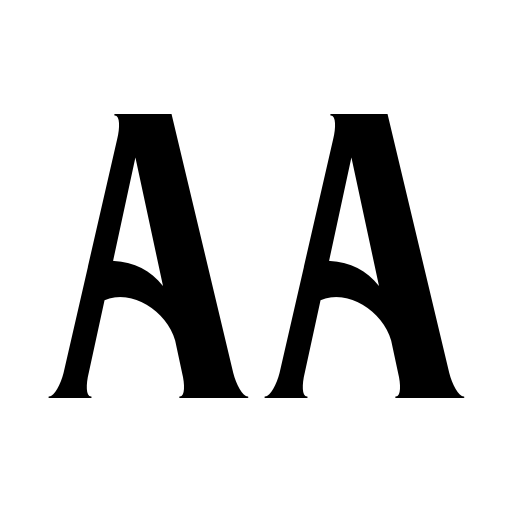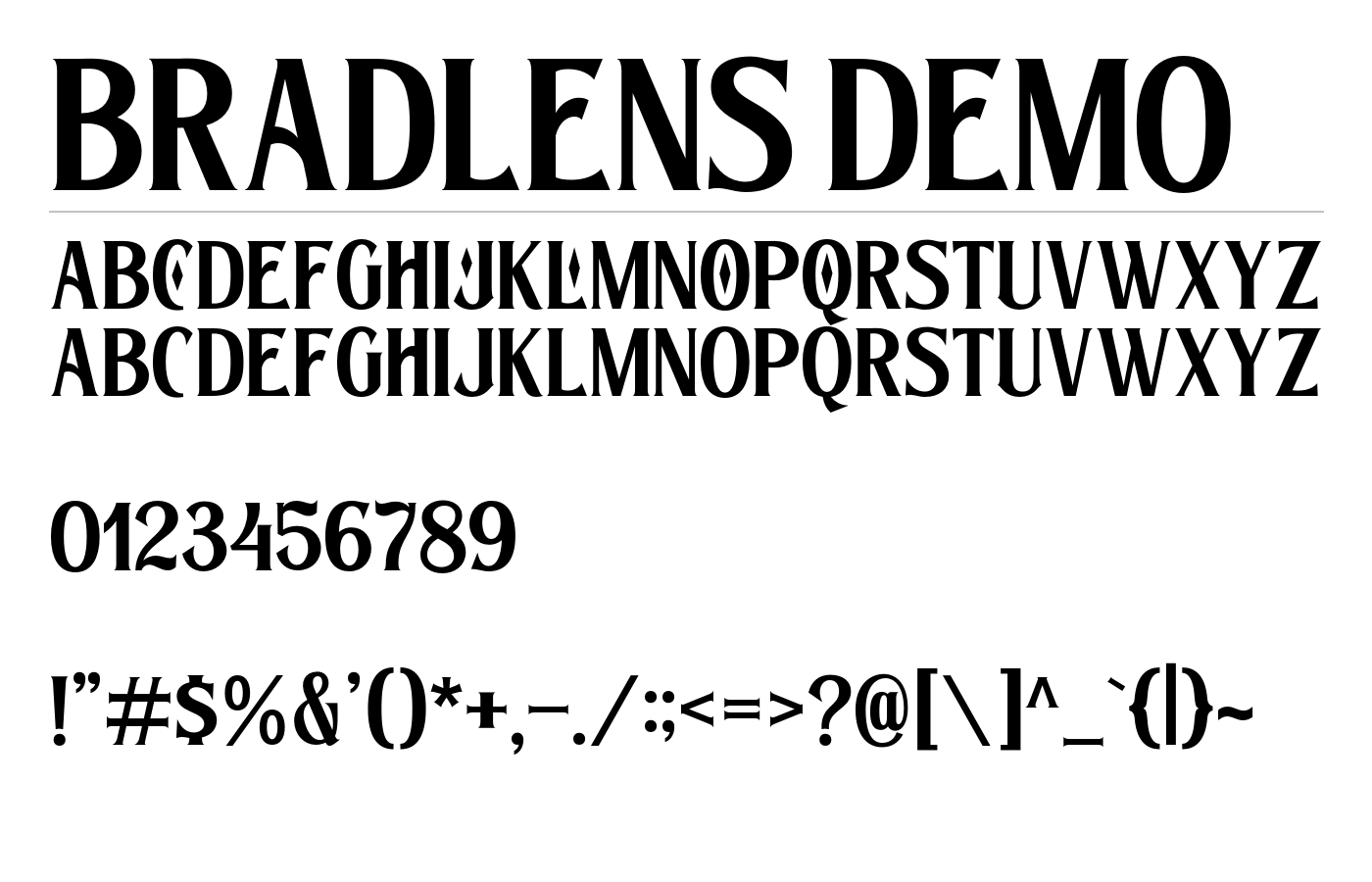
Bradlens Demo is a distinctive serif font with a strong vintage flair, featuring condensed letterforms and high contrast between thick and thin strokes. Its sharp, somewhat quirky details and unique shapes give it an elegant yet slightly playful character, making it ideal for eye-catching headlines, branding, and editorial designs that want to evoke a classic but bold personality. This font works well in luxury packaging or fashion contexts where a blend of tradition and uniqueness is desired.
Bradlens Demo Font
About Bradlens Demo Font
| Font family | Bradlens Demo Font |